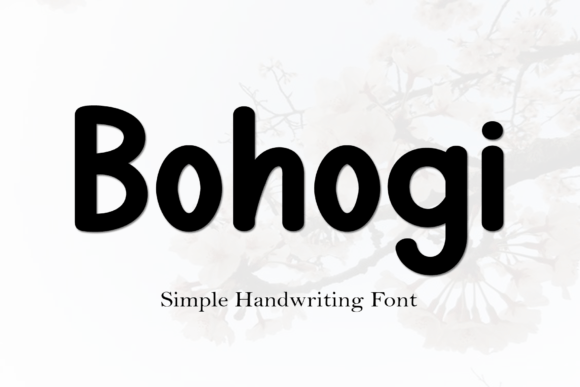
Introducing Bohogi Font, the perfect blend of classic elegance and modern simplicity. Created by the talented team at Warrior Studio, this captivating handwritten script is designed to elevate your creative projects to new heights. Whether you're a tech mogul, a fashionista, or a creative visionary, Bohogi Font is the ultimate choice for those seeking the best fonts for technology logos.
With its random and free-spirited style, Bohogi Font adds a touch of authenticity and uniqueness to your designs. Its fluid strokes and graceful curves make it ideal for logotypes, headline fonts, and corporate identities. Let your brand stand out from the crowd with this remarkable script that effortlessly captures attention.
Imagine the impact Bohogi Font can have on your apparel industry endeavors. From t-shirts to accessories, this font will infuse your designs with a sense of style and sophistication. Your customers won't be able to resist the allure of your products, thanks to the captivating power of Bohogi Font.
But Bohogi Font doesn't stop there. It's also a perfect companion for various creative projects. Whether you're working on posters, music covers, movie titles, game graphics, magazines, books, comics, cartoons, YouTube videos, Instagram posts, or websites, this font has got you covered. Its versatility knows no bounds, allowing you to explore endless possibilities and express your creativity without limitations.
Let your designs tell a story with Bohogi Font. Its handwritten charm adds a personal touch and evokes emotions that resonate with your audience. From nostalgic vibes to modern aesthetics, this font adapts effortlessly to any theme or concept you have in mind. Watch as your audience becomes captivated by the allure of Bohogi Font and the stories it weaves.
Not only is Bohogi Font visually striking, but it also brings a practical advantage to your projects. Its legibility ensures that your message is conveyed with clarity and precision. Every word, every letter is crafted with care, making sure that your audience effortlessly absorbs your content. Say goodbye to dull and unengaging typography – Bohogi Font breathes life into your words.
In conclusion, Bohogi Font is the epitome of elegance and simplicity in the world of script fonts. Its versatility and captivating nature make it the perfect choice for technology logos, corporate identities, apparel designs, and a wide range of creative projects. Let your imagination run wild and let Bohogi Font be the key to unlocking your design potential.